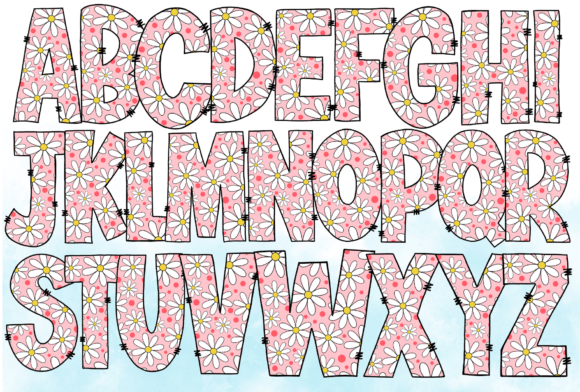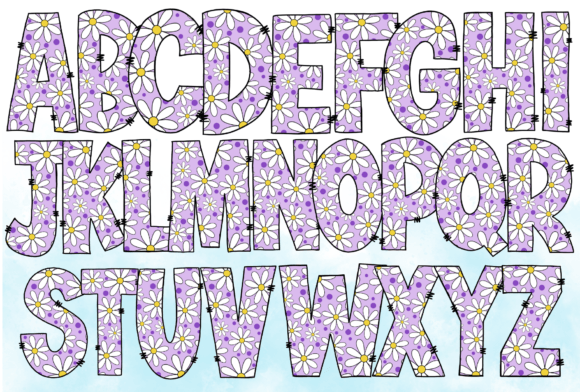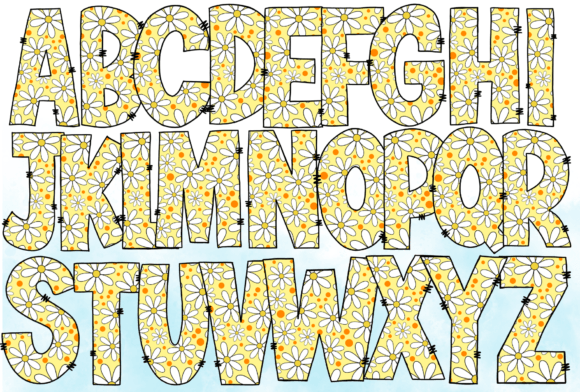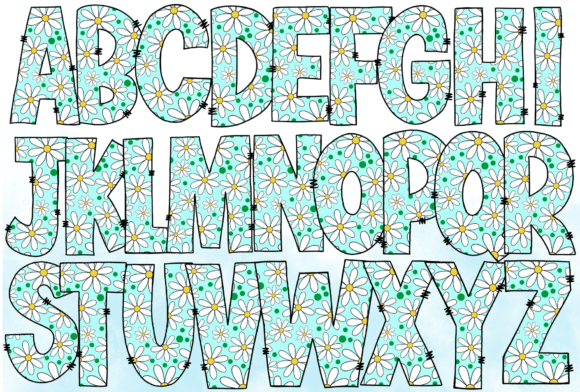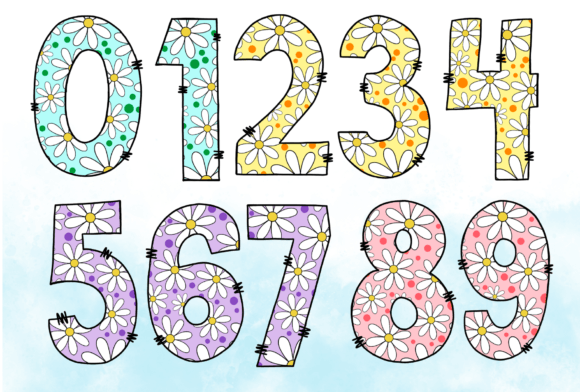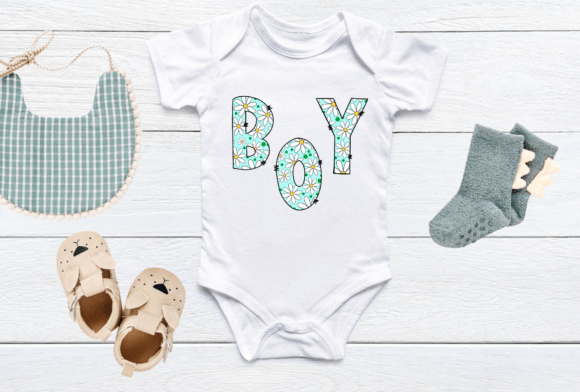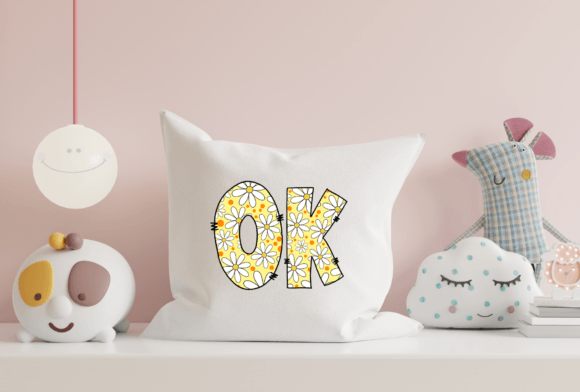
Daisy Font
Daisy is a cute and fresh color font that blossoms with playful charm. Its vibrant hues and whimsical letterforms evoke the joyous spirit of a sunlit meadow. Ideal for projects seeking a delightful and lively touch, Daisy adds a burst of color and cheer to your creative endeavors.